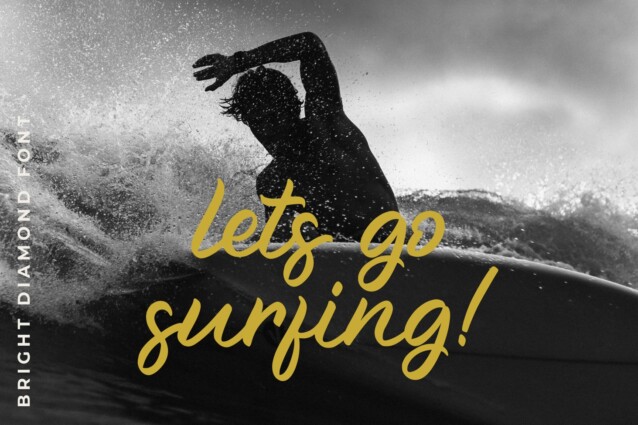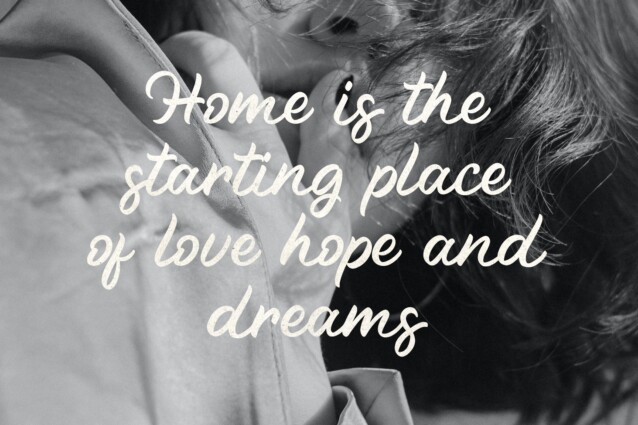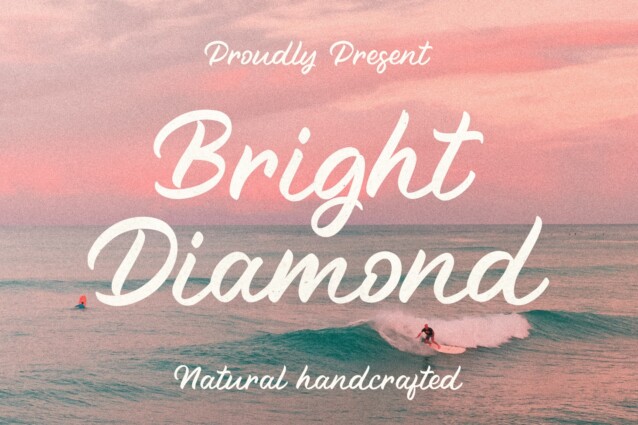
Bright Diamond Font
Bright Diamond Font is a modern script font based on fun hand lettering. It’s designed and shared by zeenesia. This font is great for your next creative projects such as watermark on photography, logo design, wedding, invitation, quotes, book cover, business card, and many other design project. From business cards to photo watermarks.